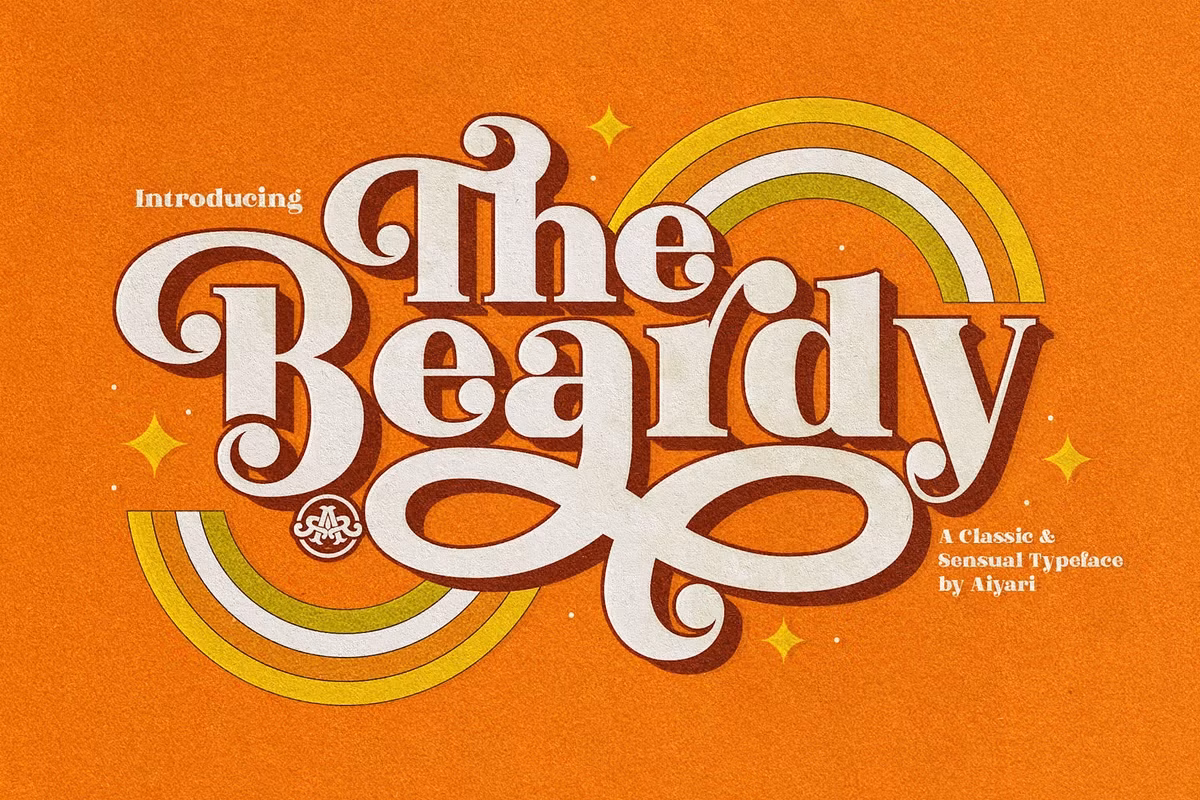
The Beardy Font Free Download is a bold and decorative vintage-style typeface that draws inspiration from classic serif lettering and old-school advertising. Perfect for logos, posters, barbershop branding, and retro-themed designs, this font commands attention with its unique, stylish curves and dramatic flair.
With strong character and a touch of nostalgia, The Beardy Font Free Download adds personality and visual impact to any creative project. Its ornate details and powerful presence make it ideal for designers who want to create a lasting impression. Test it out in your branding or packaging mockups and experience its timeless vibe—then move forward with a commercial license when you're ready to go public.